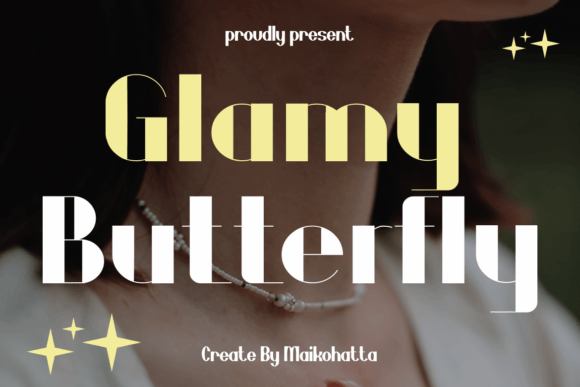
Introducing Glamy Butterfly Font, the extraordinary sans serif font that captures the essence of sophistication and elegance. Its captivating curves and delicate strokes will transform your designs into masterpieces of visual artistry.
Immerse yourself in a world of creative possibilities with Glamy Butterfly Font. Its intricate details and expressive characters are a testament to the boundless imagination of its creator, maikofarazhatta. Each letter dances across the page, carrying a story of beauty and grace.
Elevate your designs with Glamy Butterfly Font's versatility. Whether you're crafting logos, invitations, posters, or website layouts, this font will effortlessly elevate your work to new heights. Its clean lines and contemporary aesthetic lend a touch of modernity to any project.
Make a lasting impression with Glamy Butterfly Font's exceptional legibility. Its crisp edges and carefully crafted letterforms ensure that your message is conveyed with clarity and impact. Experience the joy of effortless communication as your words flow seamlessly from screen to paper.
Step into a world of creative freedom with Glamy Butterfly Font. Let your imagination soar as you explore endless possibilities. From stunning social media posts to eye-catching marketing materials, this font will ignite your creativity and leave a lasting impression on your audience.